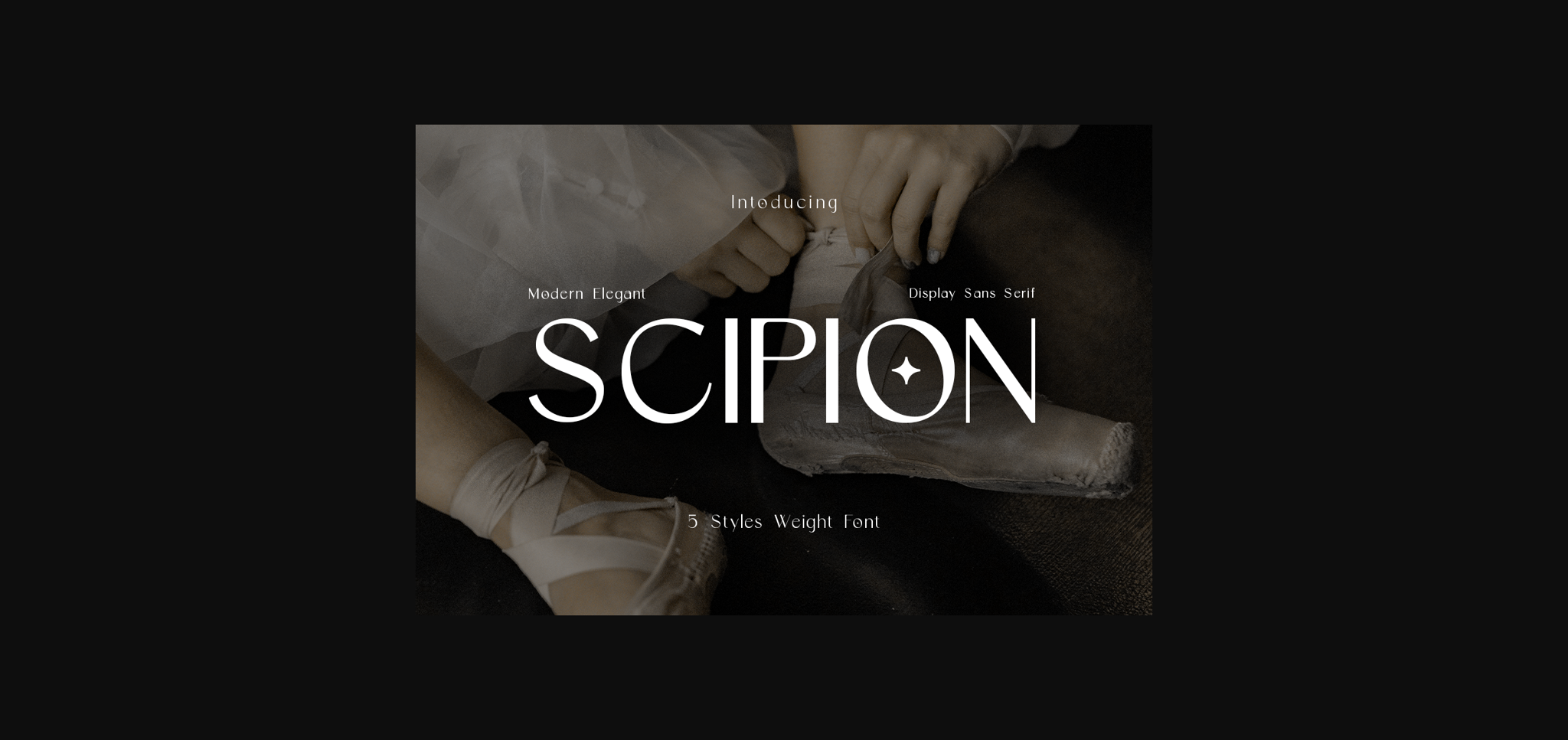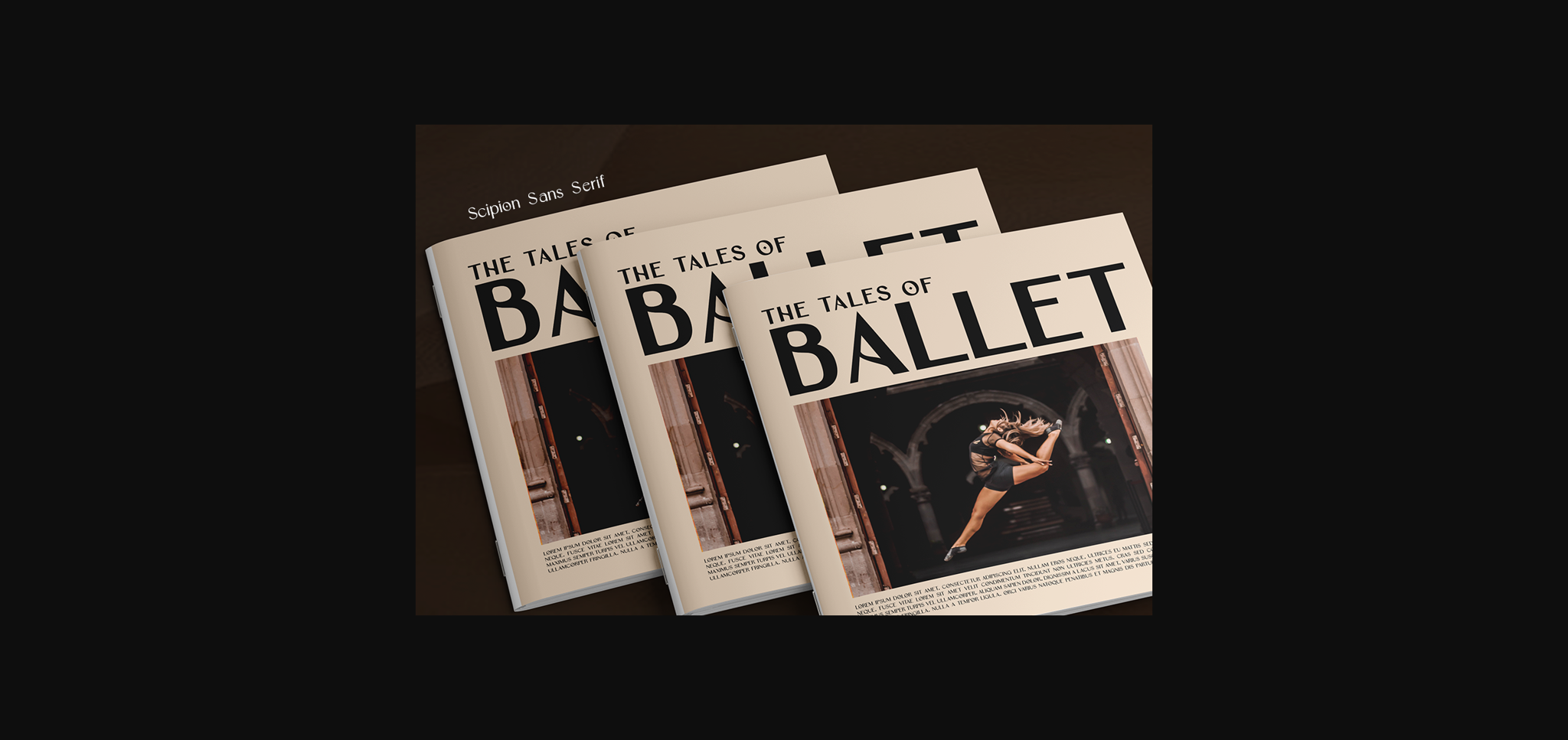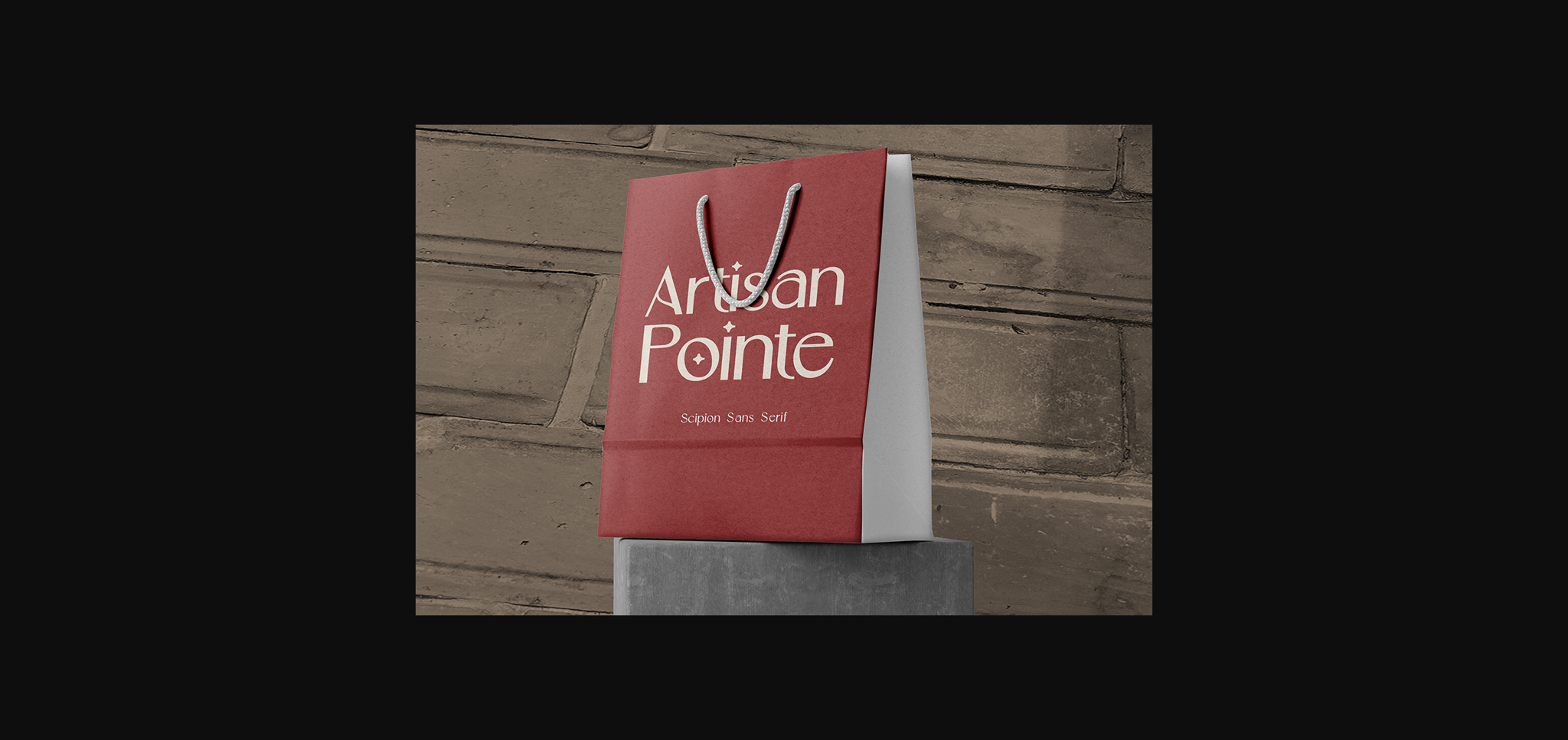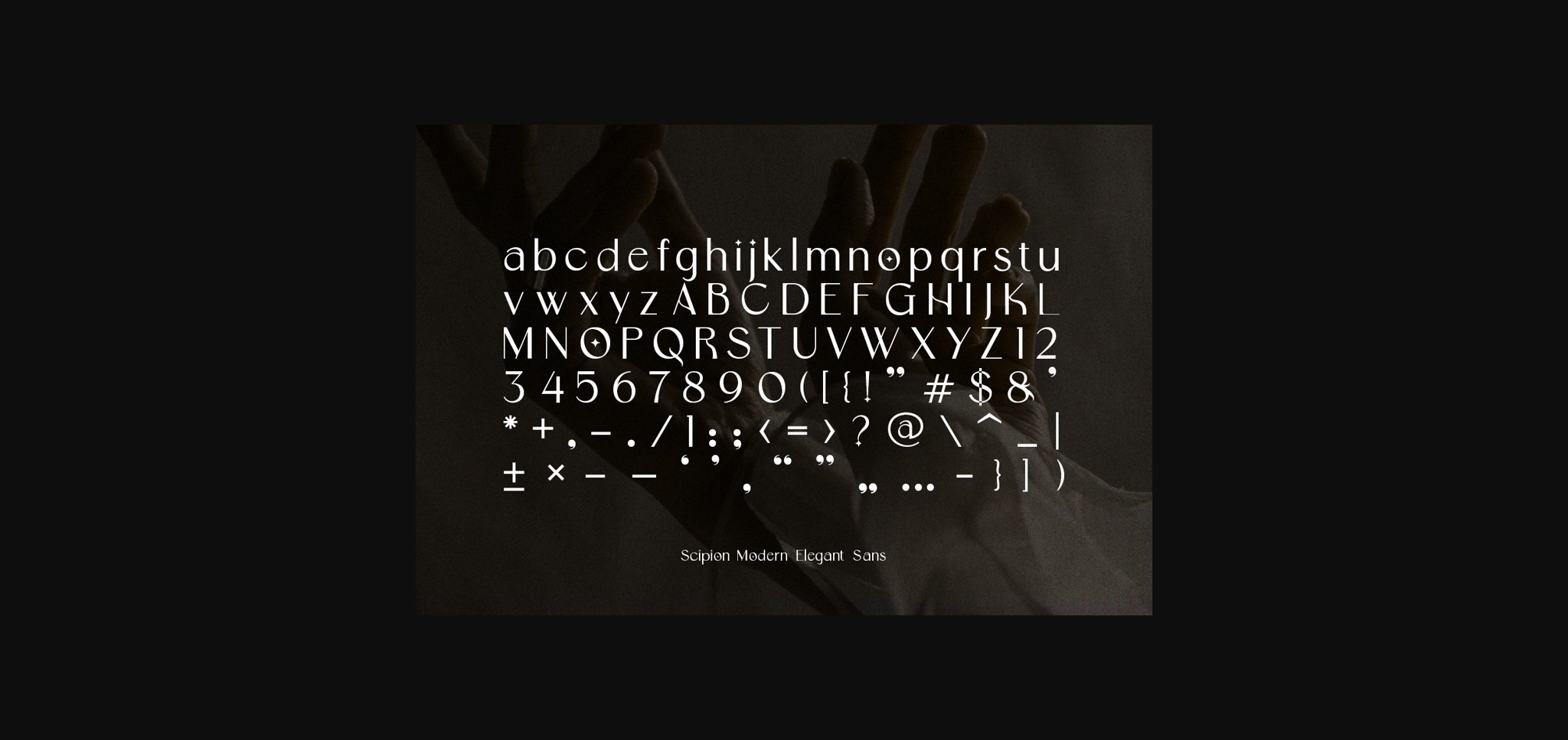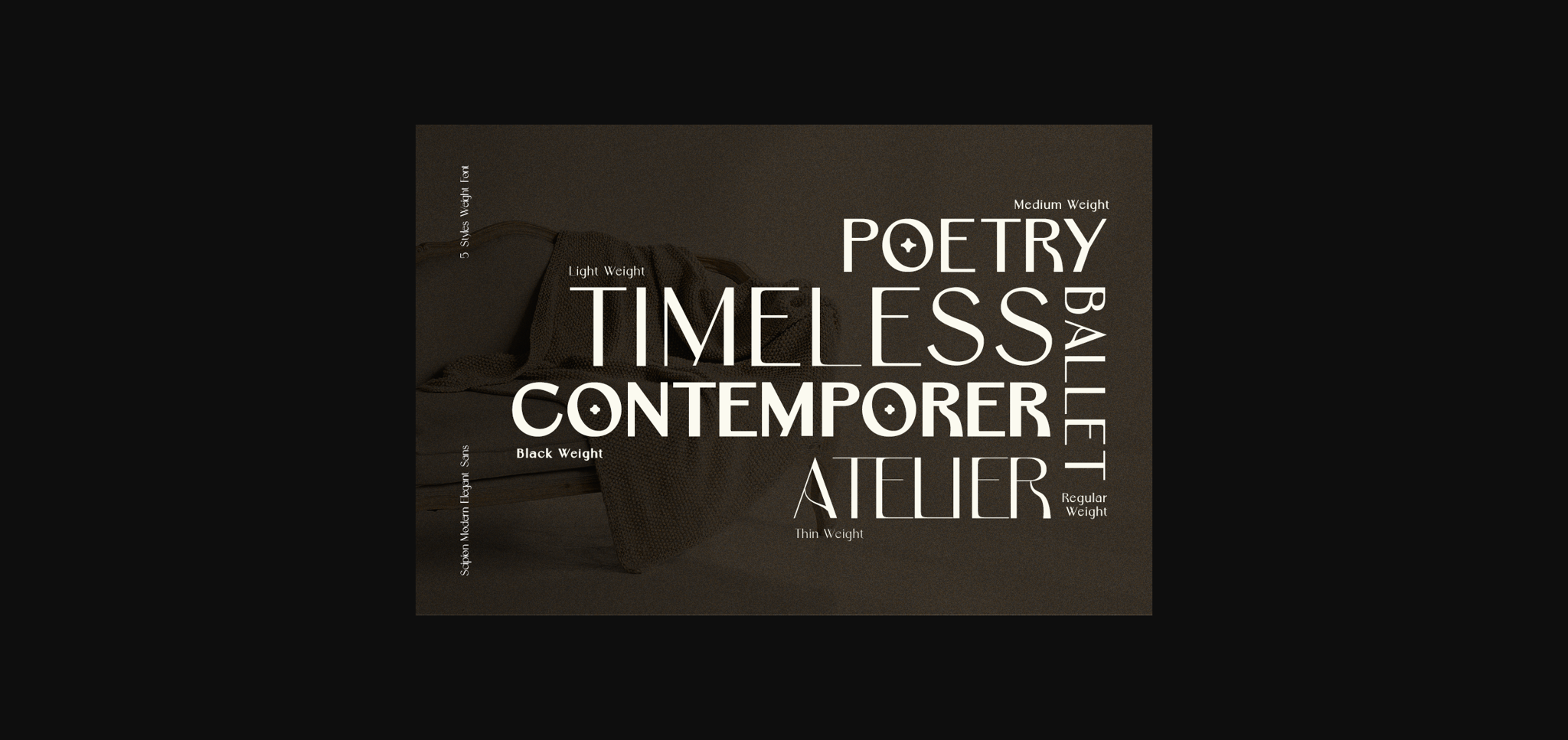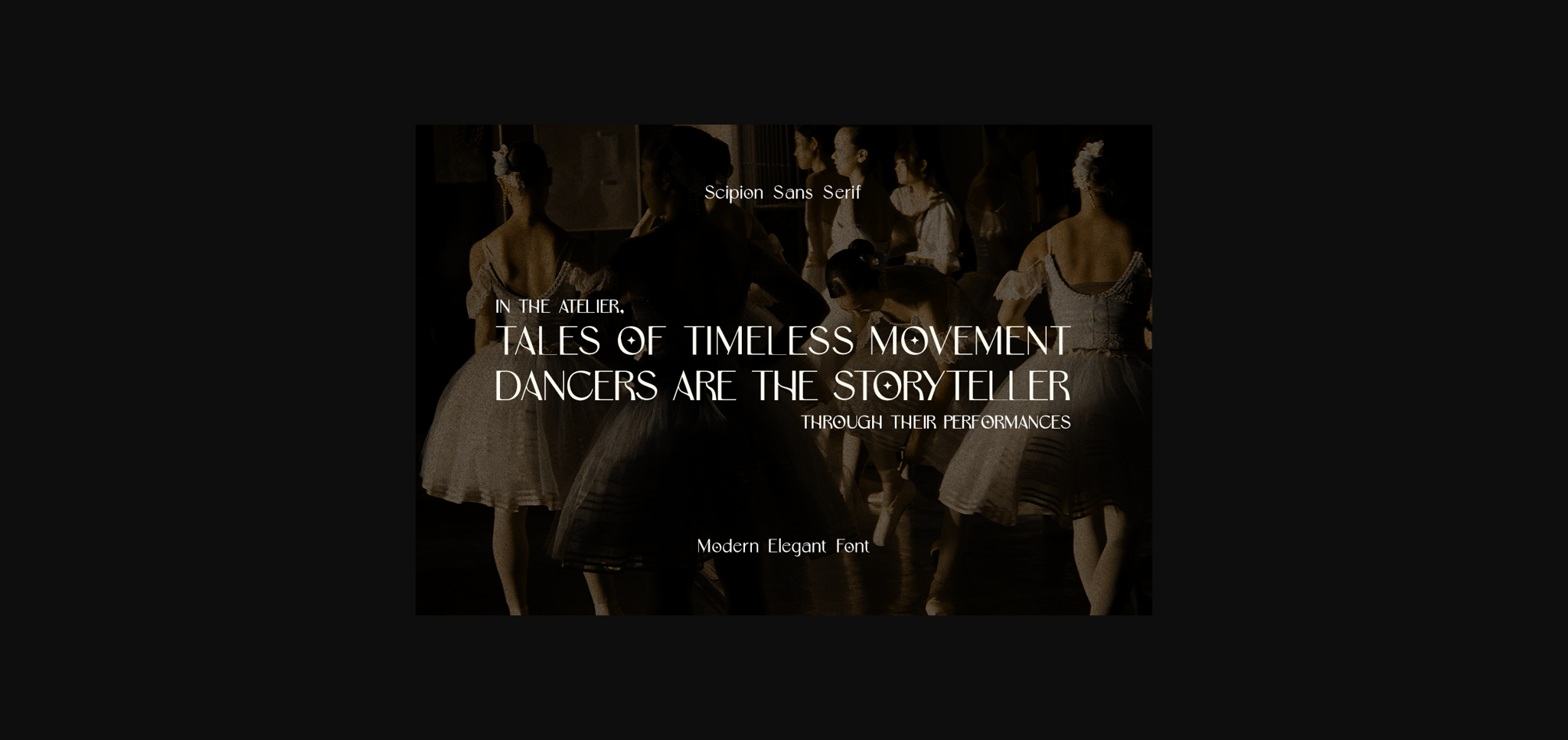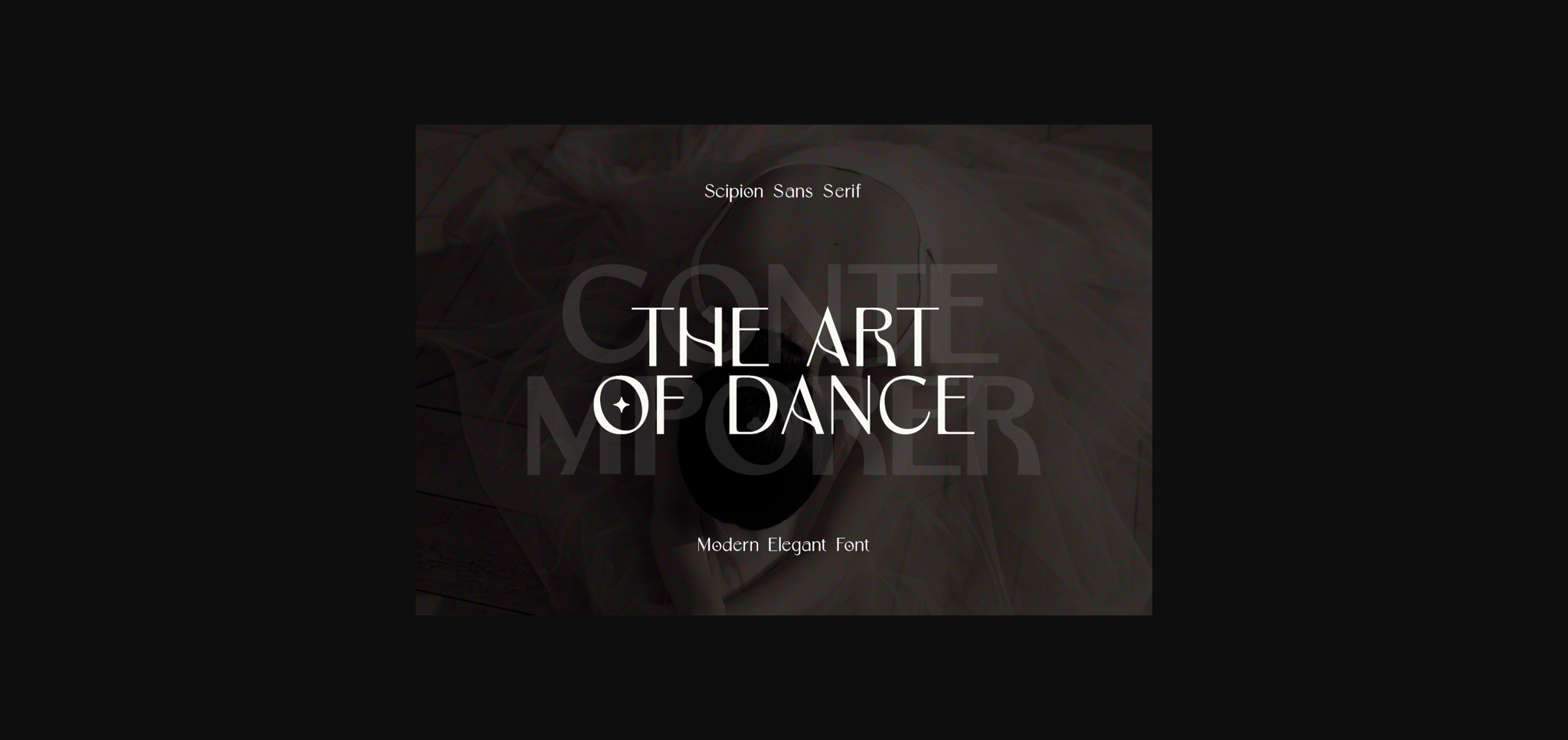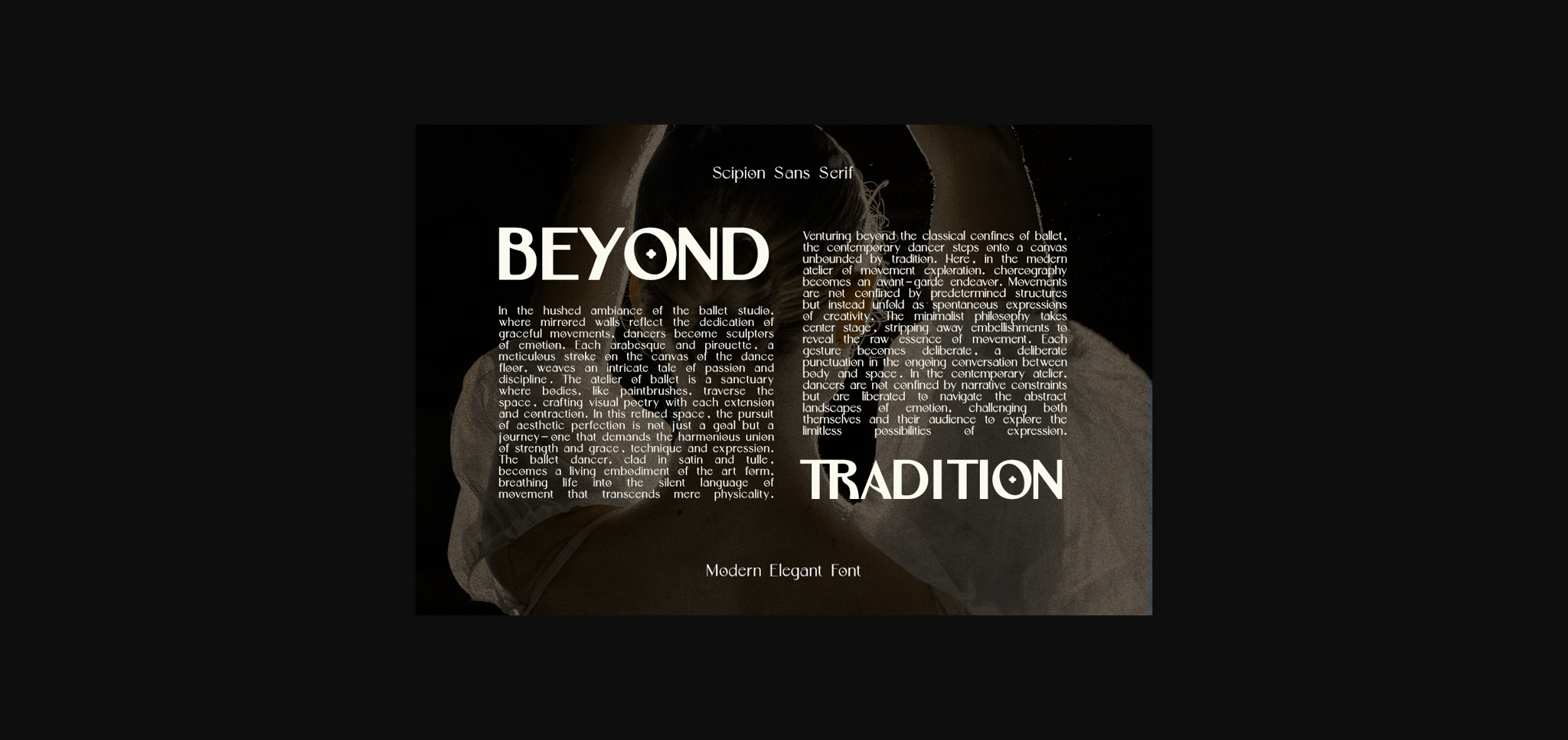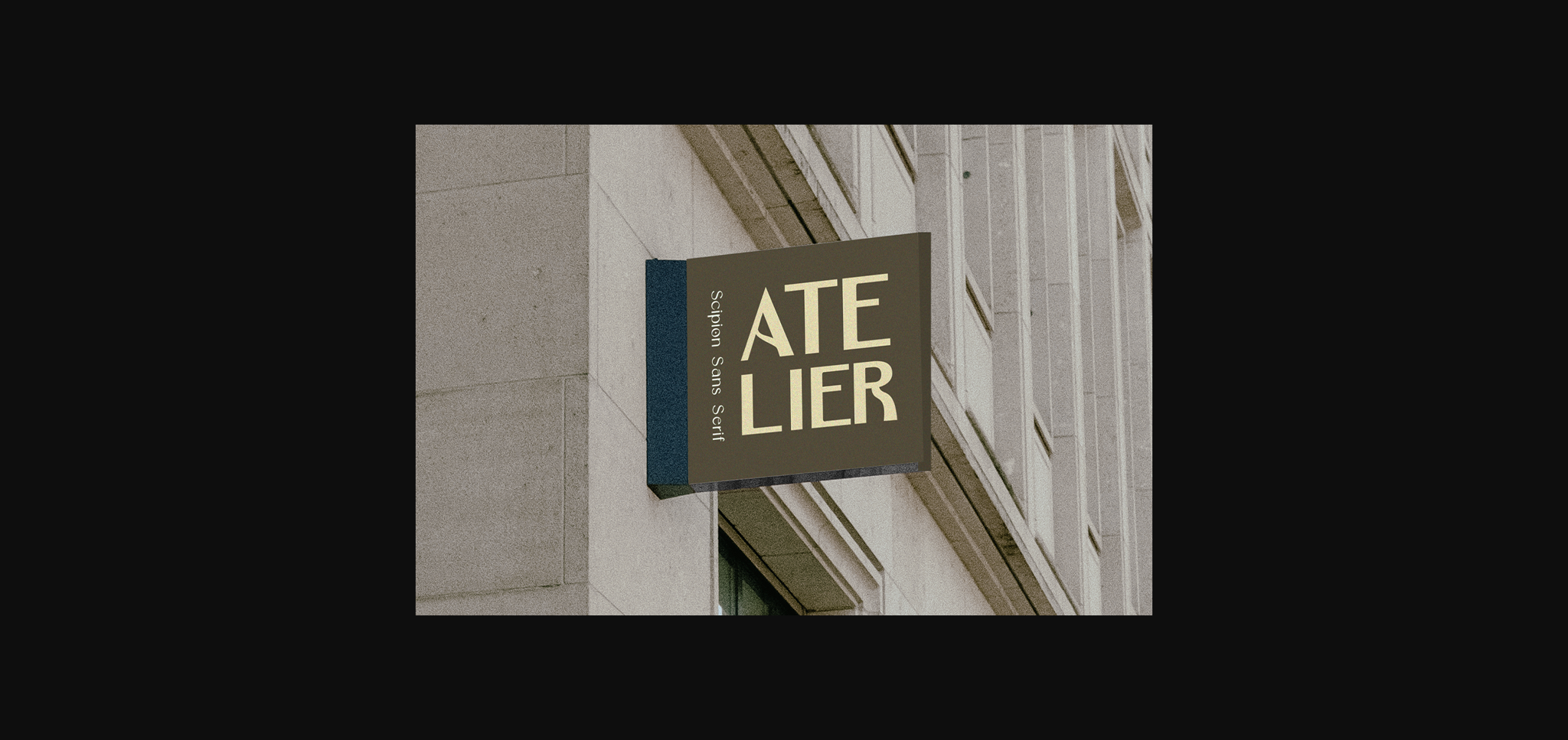
Scipion Font
About Scipion Font
Scipion – is a modern sans-serif font that dances between clean lines and elegant curves, embodying a timeless grace that uplifts your designs. It is a design partner for those who value clean lines, timeless elegance, and versatility. With its graceful curves, confident presence, and five distinct weights, it empowers you to create designs that speak with clarity and sophistication.